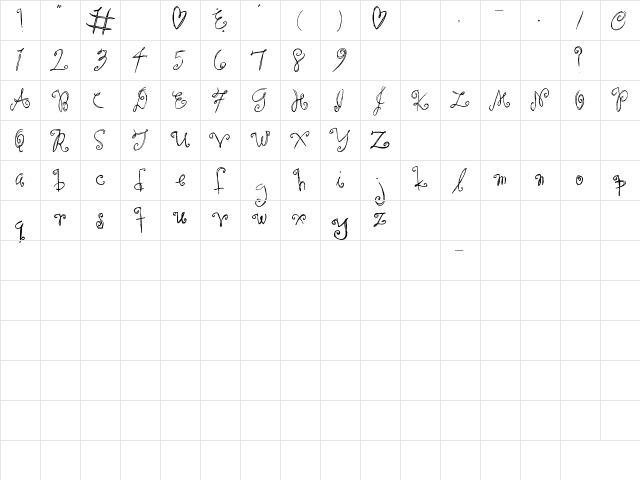
Southern Accent Belch Regular
Design Context for Southern Accent Belch Typeface
Southern Accent Belch is a composed and adaptable typeface that performs quietly and consistently across a wide range of design contexts.
Pro Tip: Use Southern Accent Belch in both headline and body roles to test its range before committing to a single application.